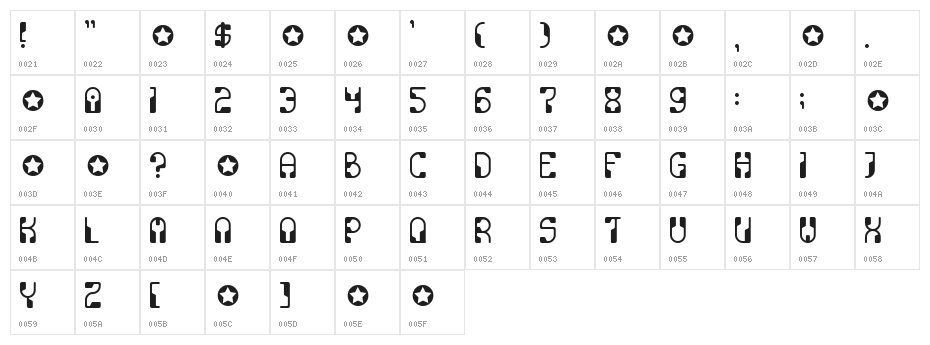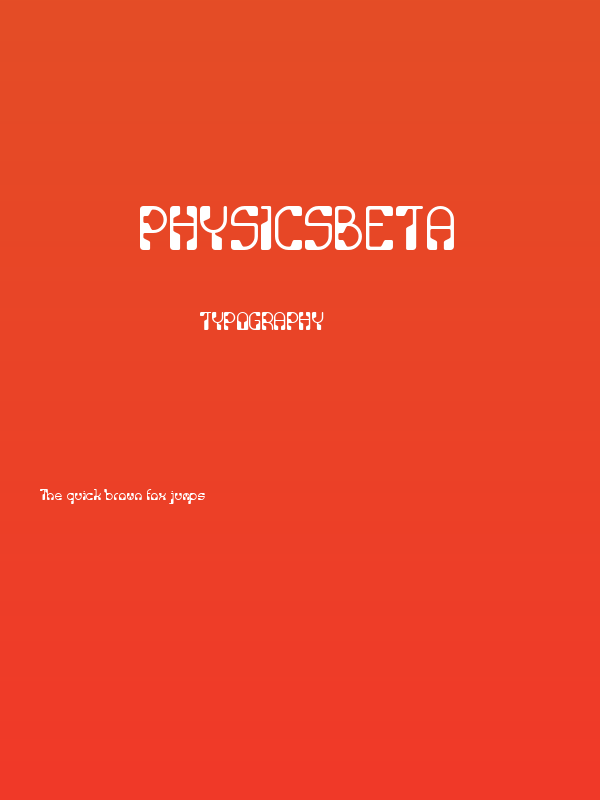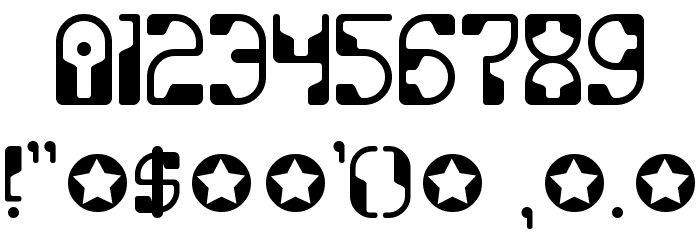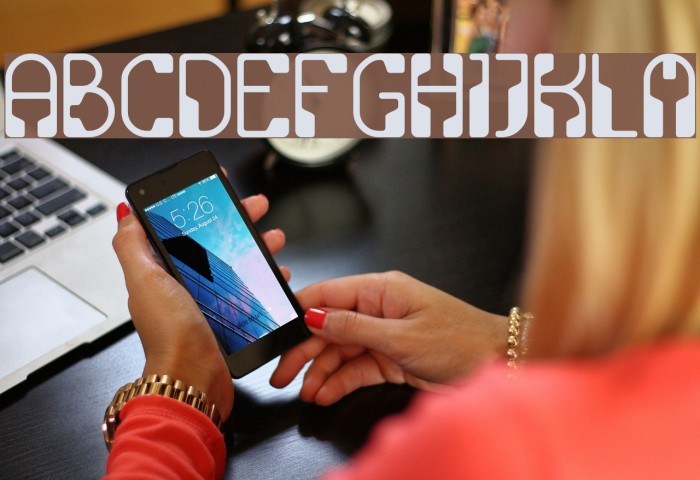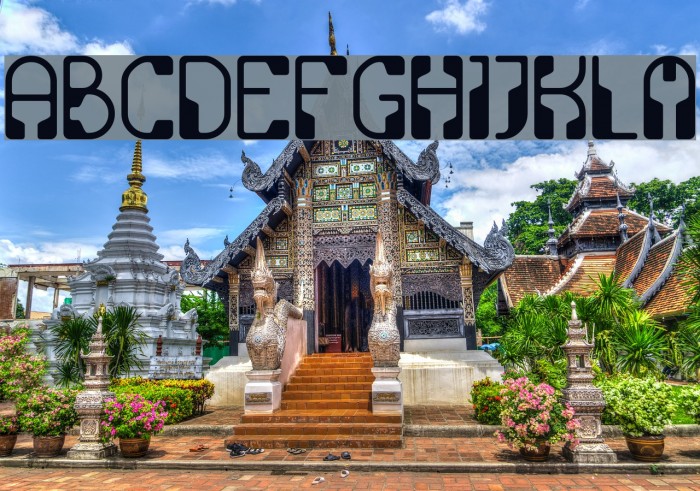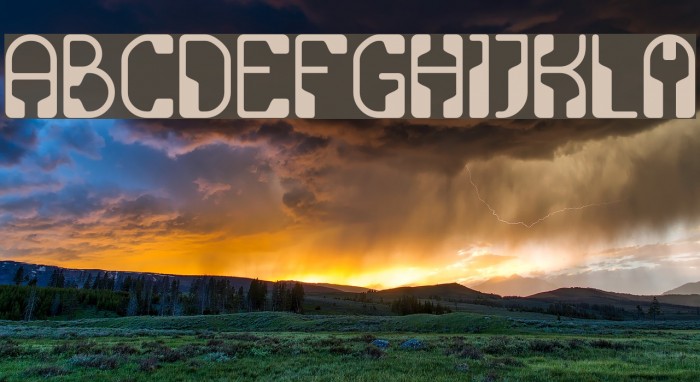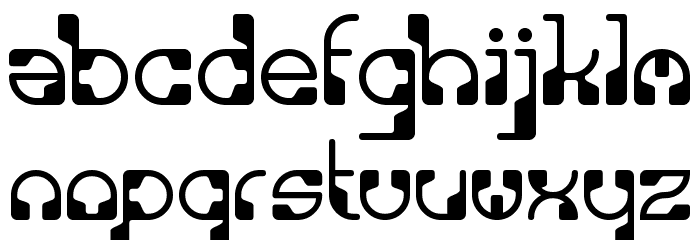
PhysicsBeta Font
PhysicsBeta Description
This font features a unique and bold design with a futuristic and geometric aesthetic. The characters are constructed with a combination of solid and hollow shapes, creating a striking visual contrast. The uppercase and lowercase letters maintain a consistent style, with rounded edges and a blocky structure. The numbers and special characters follow the same design principles, ensuring a cohesive look across all elements. This font is ideal for projects that require a modern and eye-catching appearance, such as technology branding, sci-fi themed designs, or innovative product packaging.
| Proposed Projects | Ideal for technology branding, sci-fi designs, and innovative product packaging. |